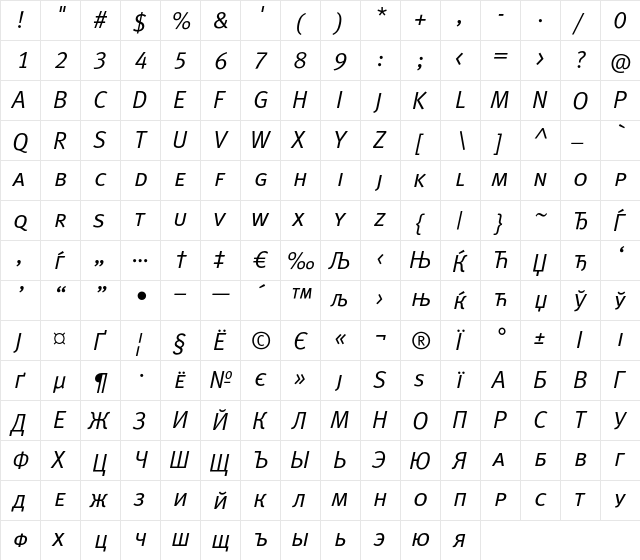
MetaNormalCyrLF-ItalicCaps Regular
Design Context for MetaNormalCyrLF-ItalicCaps Typeface
MetaNormalCyrLF-ItalicCaps is a composed and adaptable typeface that performs quietly and consistently across a wide range of design contexts. The slanted form adds forward momentum and visual energy.
Pro Tip: Use MetaNormalCyrLF-ItalicCaps for emphasis, pull quotes, and subheadings where its slanted energy can add rhythm to the layout.